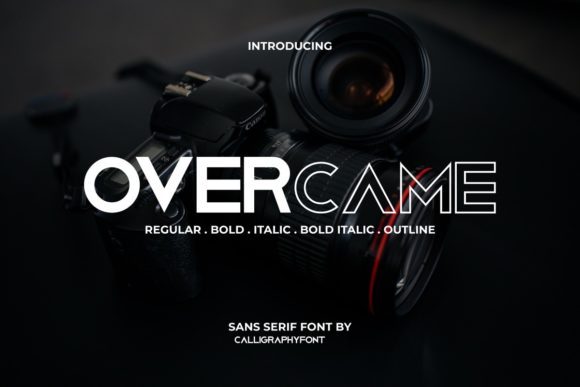
Step into the captivating world of Overcame, a font that exudes boldness and modernity, crafted with the artistry of CalligraphyFonts. This display font is your gateway to crafting movie titles that leave an indelible mark, captivating audiences with its striking presence.
Overcame possesses a charismatic personality that effortlessly elevates any creation, regardless of its subject matter. Its distinctively strong letterforms command attention, adding an aura of sophistication and drama to your movie titles, posters, and promotional materials. With Overcame, ordinary becomes extraordinary as it transforms mere words into a cinematic spectacle.
Unleash your creativity and let Overcame take center stage in your design endeavors. Its versatility knows no bounds, making it an ideal choice for a wide range of projects. From action-packed thrillers to heart-wrenching dramas, Overcame seamlessly adapts, amplifying the emotional impact of your storytelling.
Immerse yourself in the world of Overcame and witness the transformation of your movie titles into works of art. This font is not just a collection of letters; it's a gateway to a cinematic universe where your imagination reigns supreme.